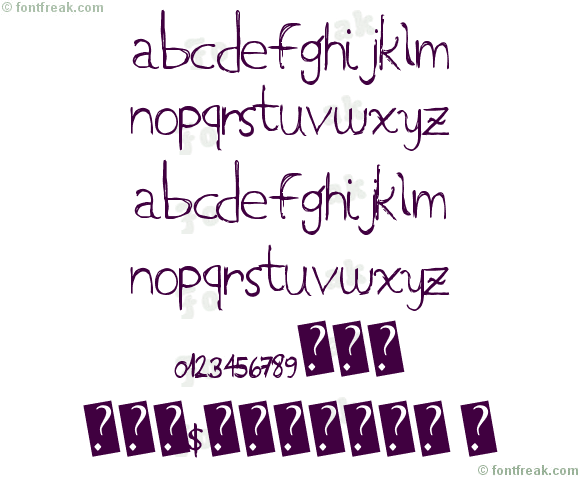
LowCase
LowCase by XEROGRAPHER FONTS is a unique display font that exudes a casual and playful charm. This font, characterized by its rounded, lowercase letters, offers a friendly and approachable aesthetic, making it an excellent choice for a variety of design projects. The strokes have a moderate weight with gentle curves, creating a light and airy appearance that enhances readability while maintaining a distinctive style. The spacing between characters is generous, allowing for clear legibility across different applications.
This font is particularly well-suited for creative use cases such as wedding invitations, where its whimsical nature can add a touch of elegance and warmth. It also shines in the realm of children's books, as its friendly appearance can engage young readers. Restaurant menus benefit from the inviting vibe of LowCase, making dishes feel more approachable and appealing. Additionally, it can be effectively used for social media graphics, helping content creators to craft engaging posts that stand out in crowded feeds.
What sets LowCase apart is its ability to blend simplicity with character. Its approachable design makes it versatile enough for both professional and casual contexts, allowing it to resonate with a wide range of viewers. Whether you’re designing for print or digital platforms, LowCase is a delightful choice that will surely enhance your creative endeavors.